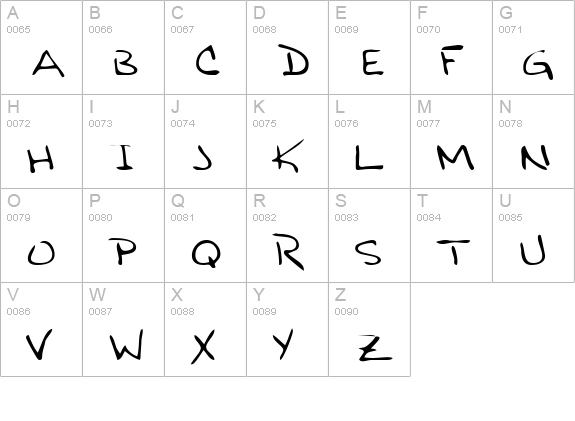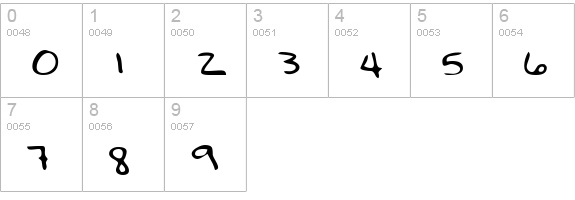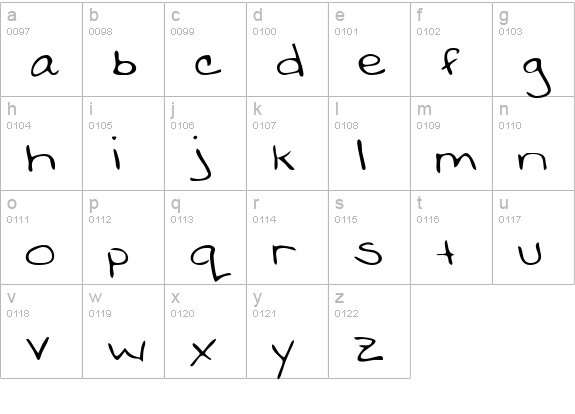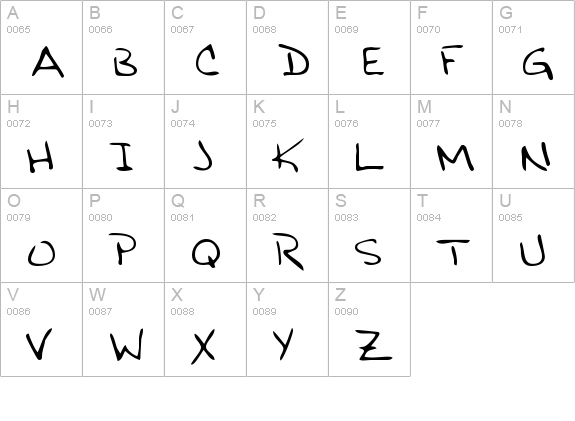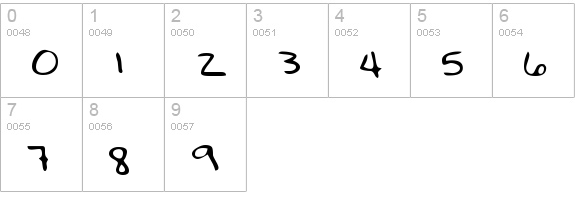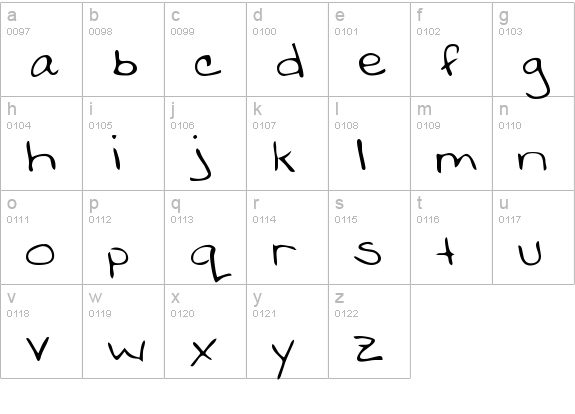
BobbiesHand Font Details
BobbiesHand font is a charming and whimsical typeface that exudes a playful and friendly vibe. Its handwritten style gives a personal touch to any design, making it perfect for a wide range of projects including invitations, greeting cards, posters, and more. The flowing lines and unique characters of BobbiesHand font add a touch of creativity and individuality to your creative endeavors. Best of all, BobbiesHand font is completely free to download at FontsMarket.com, making it accessible to all designers and creatives looking to add a touch of warmth and personality to their projects. Whether you're working on a personal project or a professional design, BobbiesHand font is sure to bring a sense of fun and character to your work. Download it today and let your creativity shine with this delightful and free-to-use font.